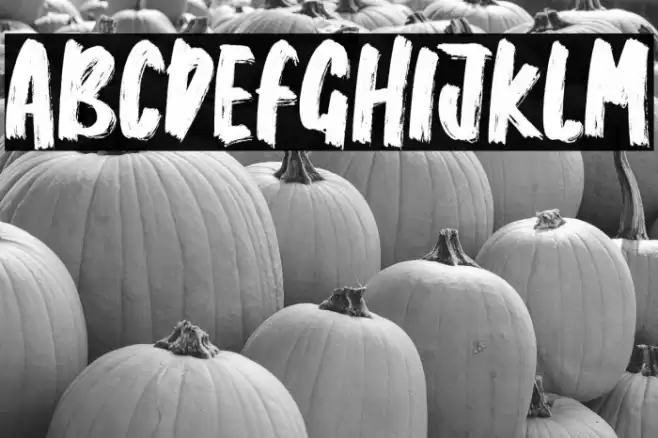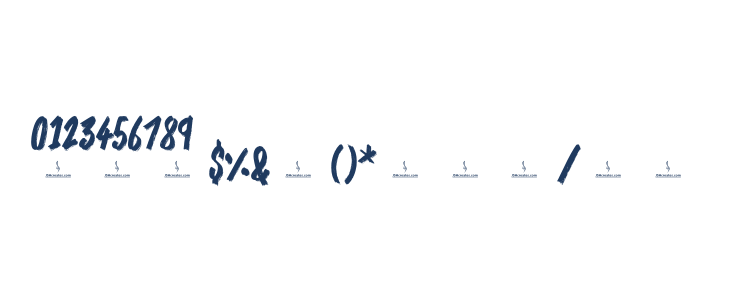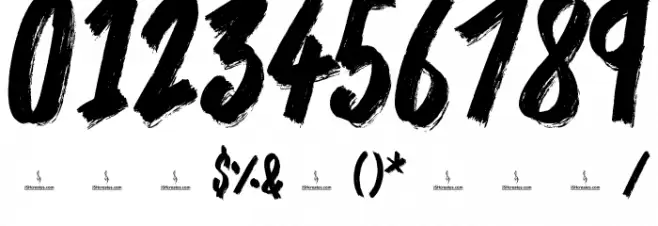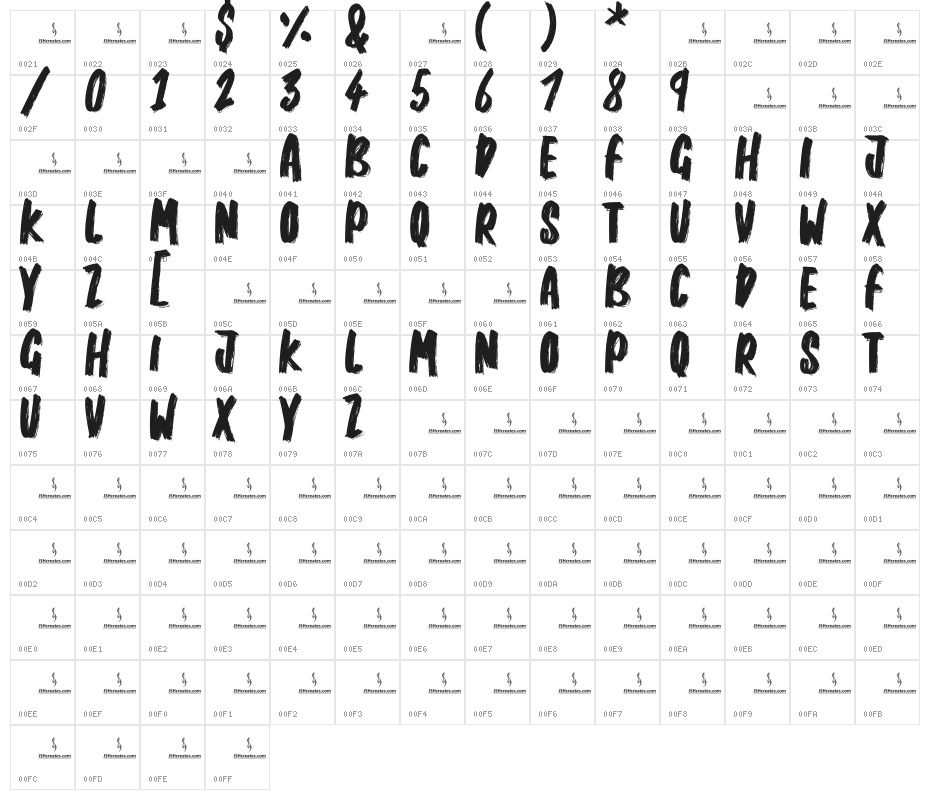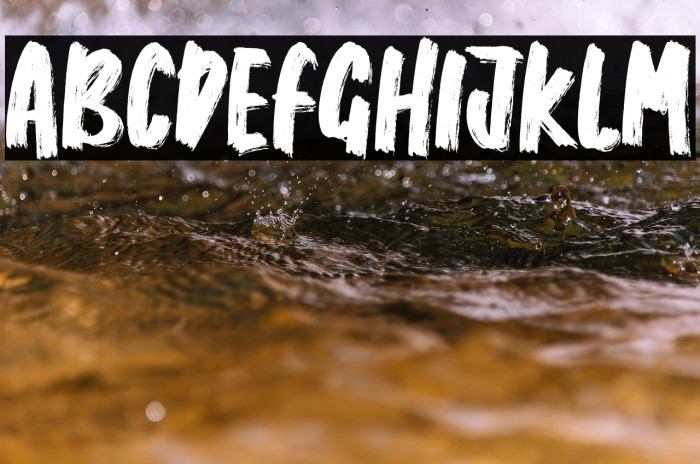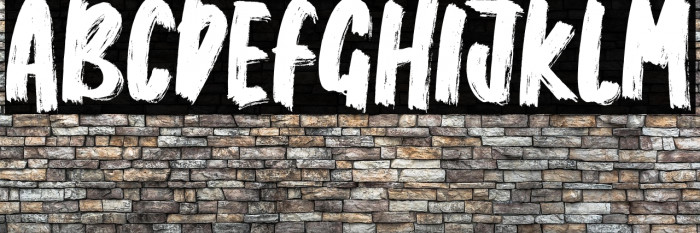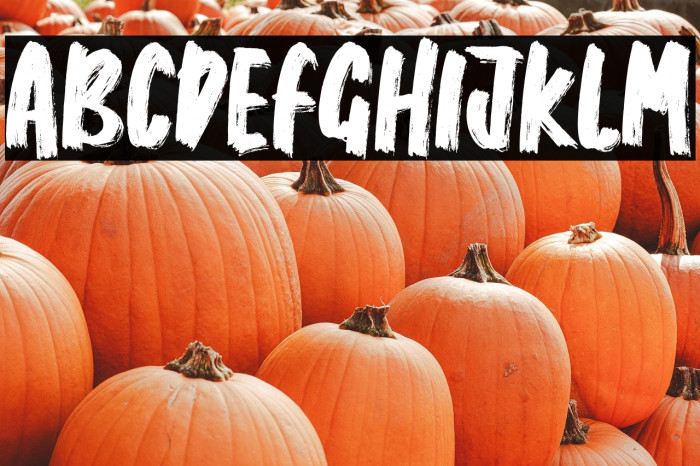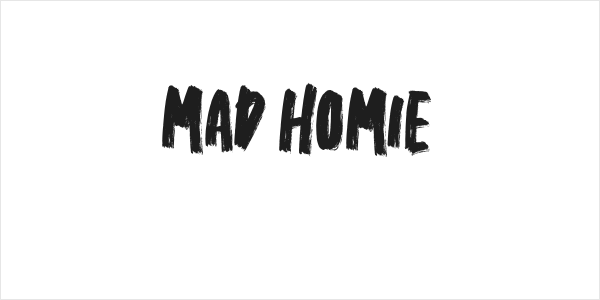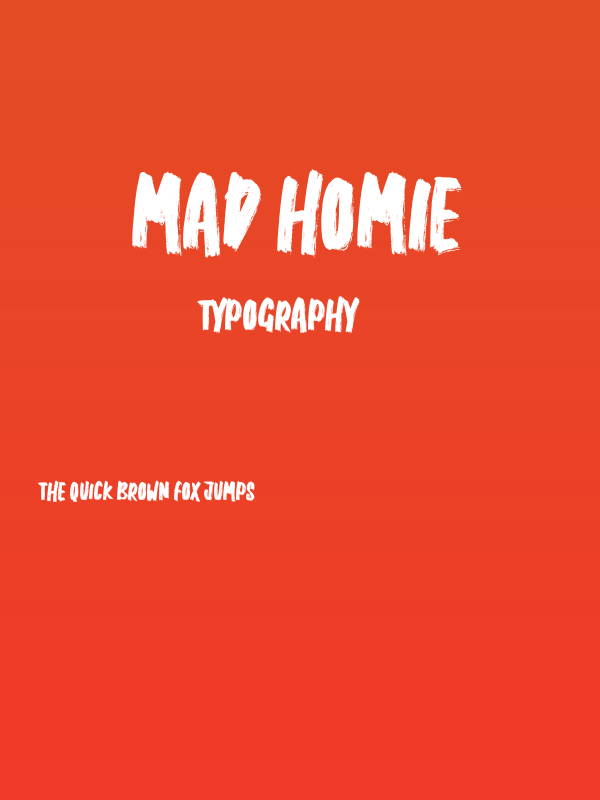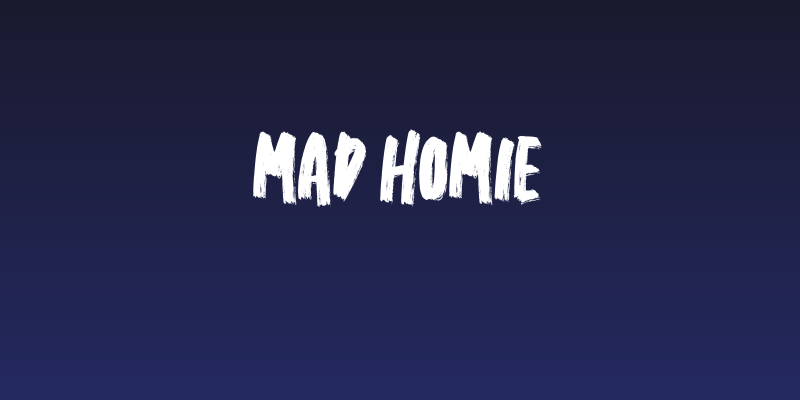
Mad Homie Font
Mad Homie Description
This font features a bold and expressive brush style, characterized by its dynamic and energetic strokes. The letters are crafted with a sense of movement, giving them a hand-painted appearance. The uppercase and lowercase characters maintain a consistent style, with thick, uneven lines that convey a sense of raw creativity. The numbers and special characters follow the same artistic approach, ensuring a cohesive look across all elements. This font's rough texture and bold presence make it stand out, perfect for projects that require a strong visual impact.
- Proposed Projects: Ideal for posters, album covers, branding, and any creative projects that require a bold, artistic touch.